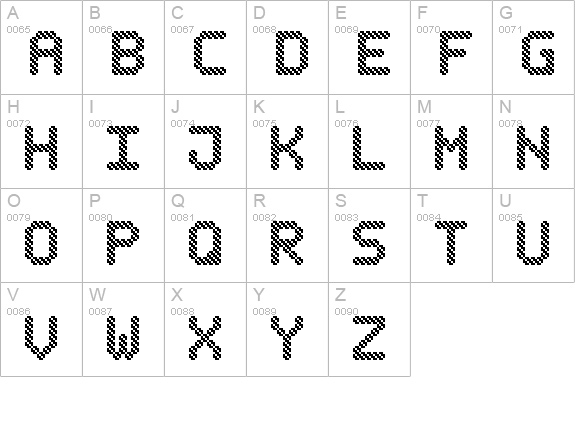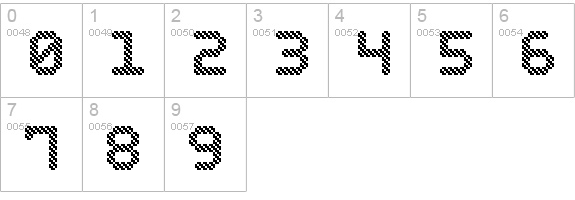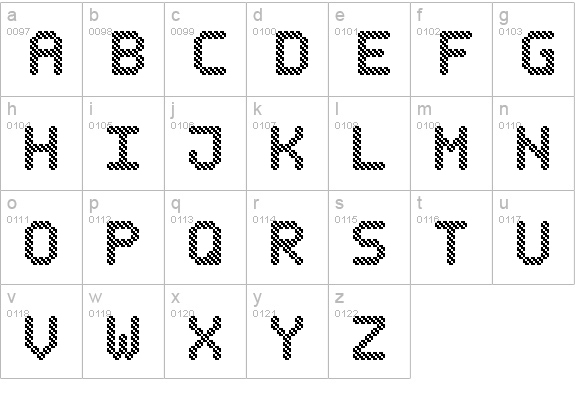
Bubble Pixel-7 Hatch font is a playful and eye-catching typeface that brings a fun and bubbly vibe to any design project. It is a perfect choice for creating titles, headlines, logos, and other creative designs that need a touch of whimsy and charm. This font features pixelated bubbles that give it a unique and modern look. The rounded edges and bold strokes add a sense of energy and dynamism to your designs, making them stand out from the crowd. One of the best things about Bubble Pixel-7 Hatch font is that it is freely available to download at FontsMarket.com. You can easily access and download this font without any cost, making it a fantastic option for designers on a budget or anyone looking to add a touch of creativity to their projects without breaking the bank. Whether you're designing a poster, flyer, website, or any other graphic project, Bubble Pixel-7 Hatch font will definitely make a statement. Its playful and vibrant style will capture attention and make your designs memorable. So why wait? Download Bubble Pixel-7 Hatch font now from FontsMarket.com and let your creativity soar with this free and fantastic typeface.